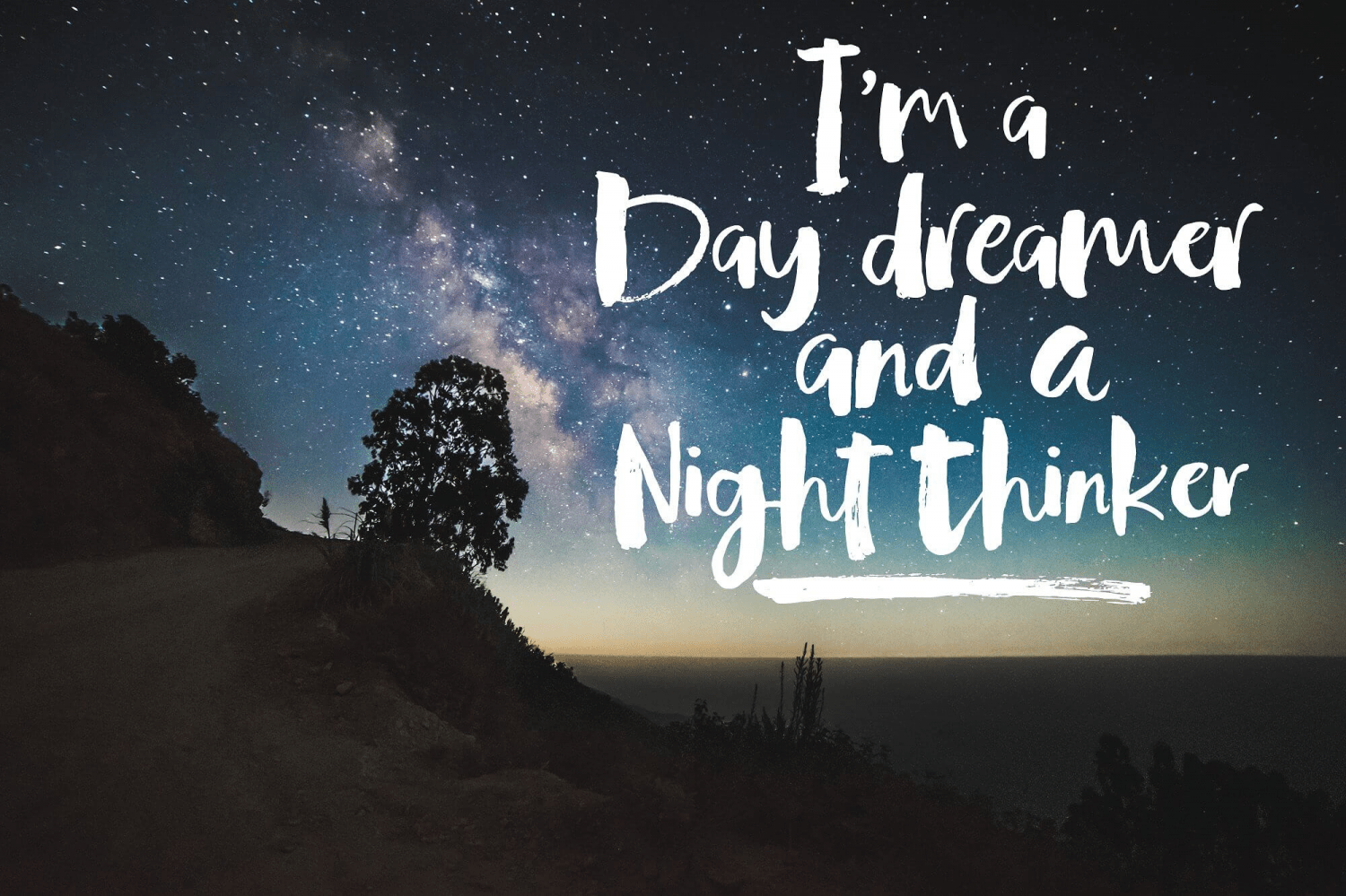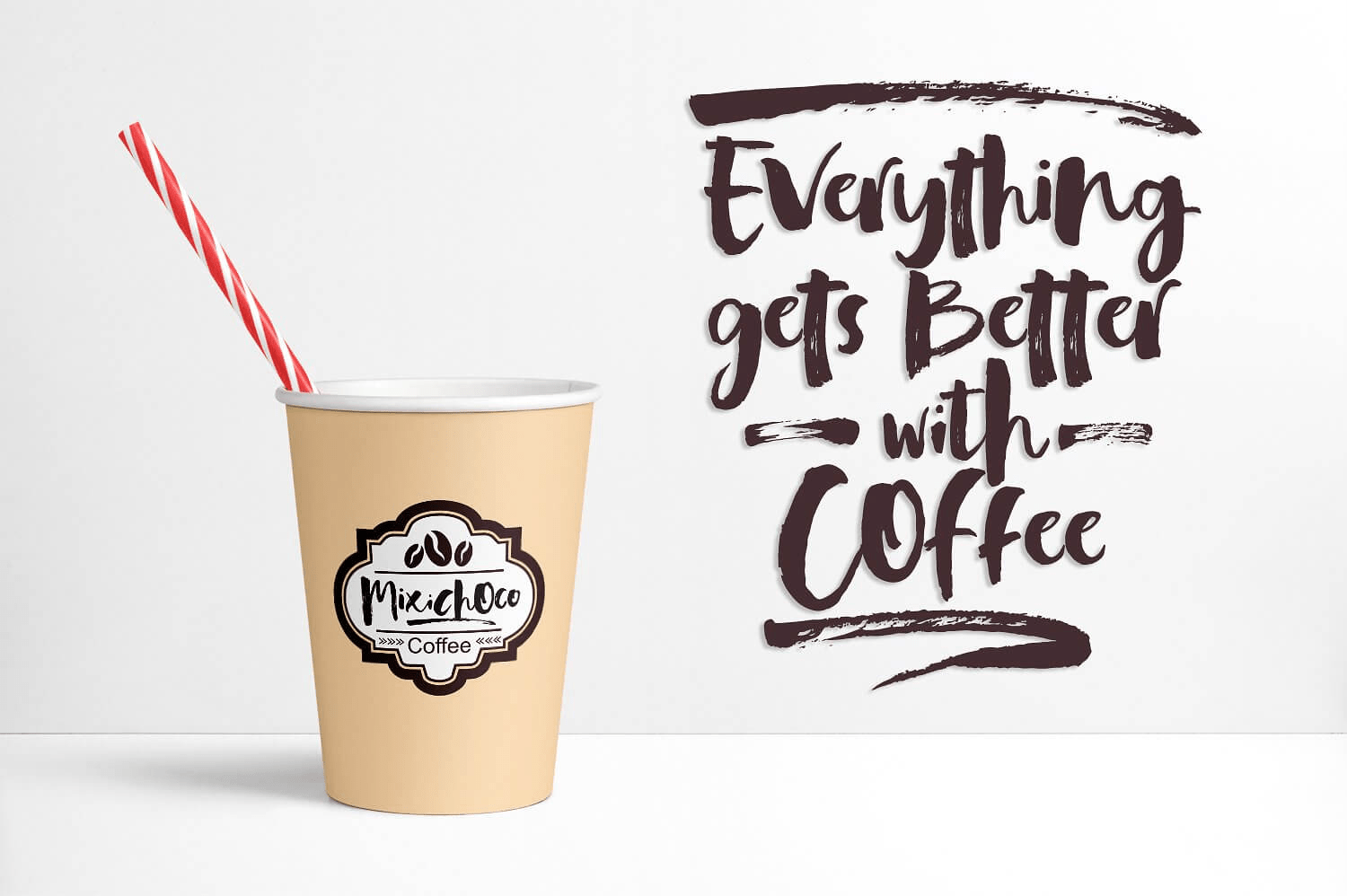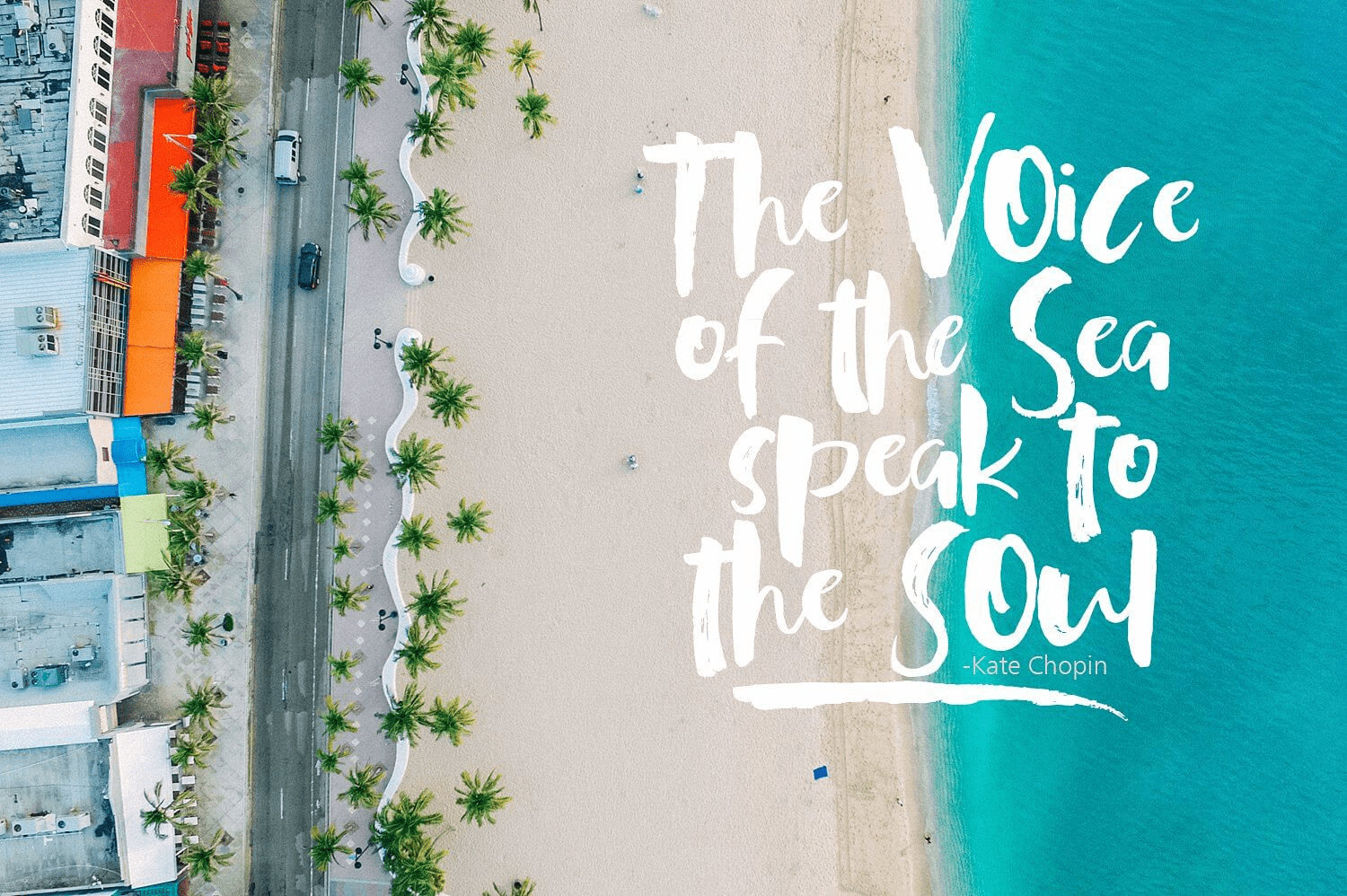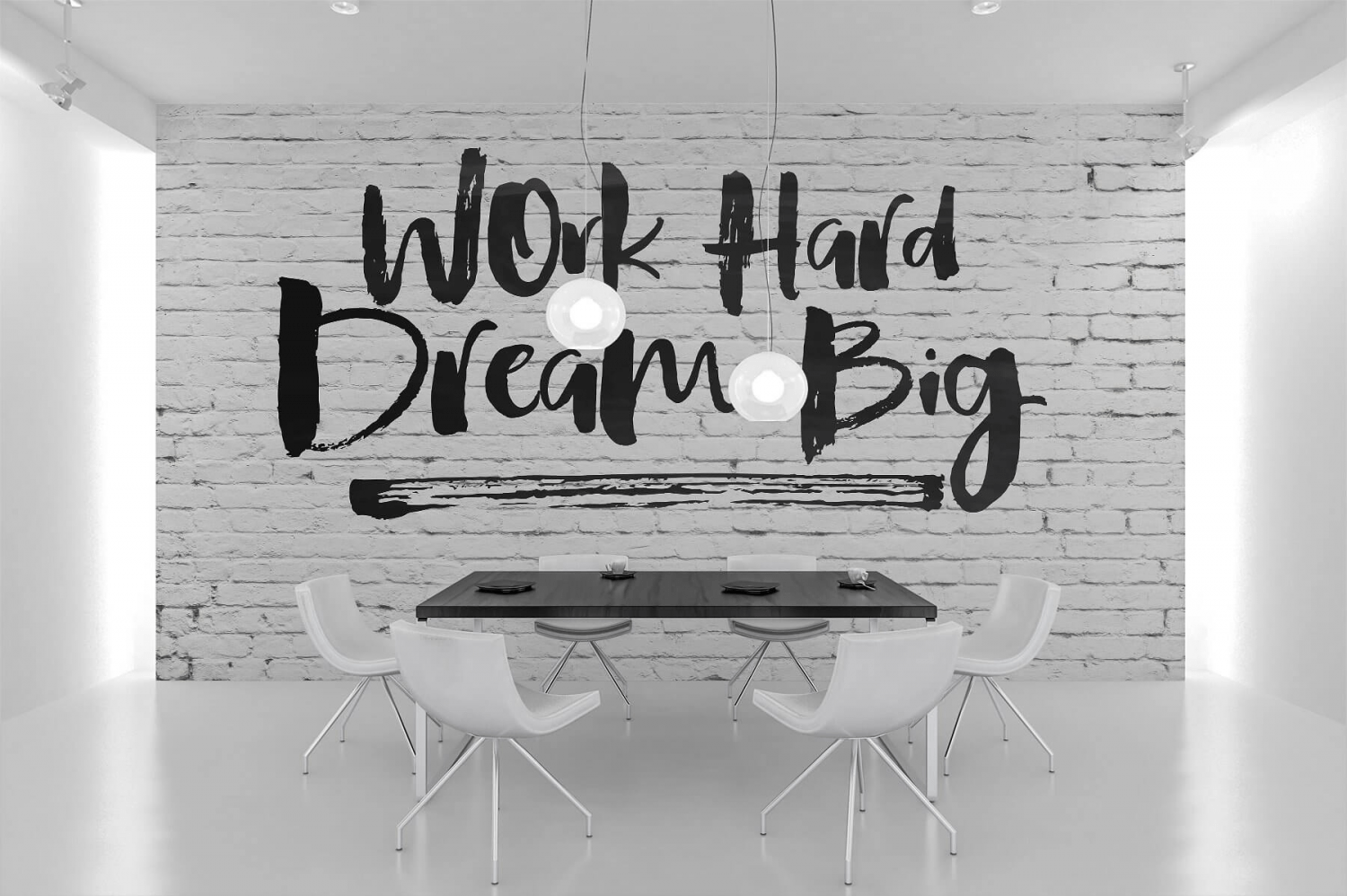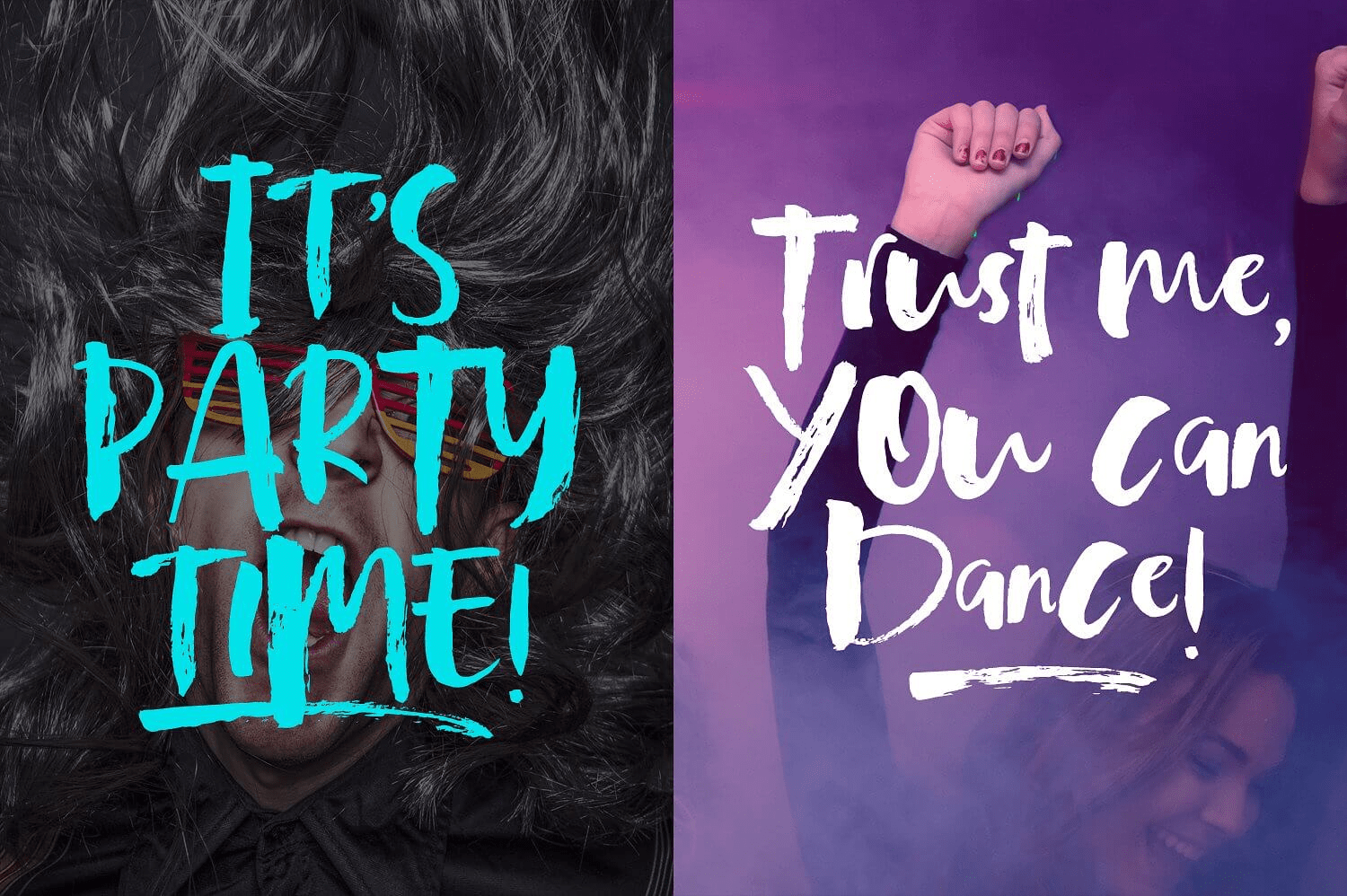
Introducing Invictus hand-painted brush font! With FOUR hand-painted character sets and SWASHES which can be mixed up, lowercase or uppercase. Invictus character are great for logos, name tag, handwritten quotes, product packaging, merchandise, social…